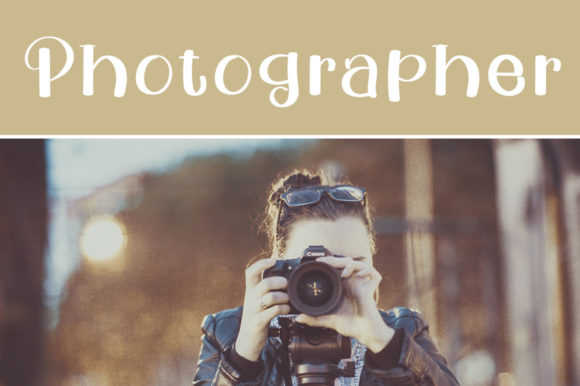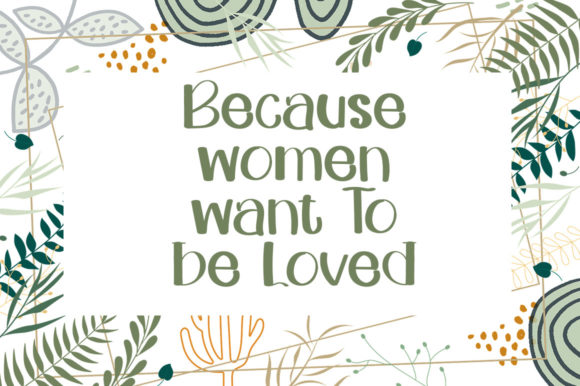
Girls Oliver Font
db-ku.com - Script & Handwritten -- Girls Oliver is a trendy and chic handwritten font. No matter the topic, this font will be an incredible asset to your fonts’ library, as it has the potential to elevate any creation.